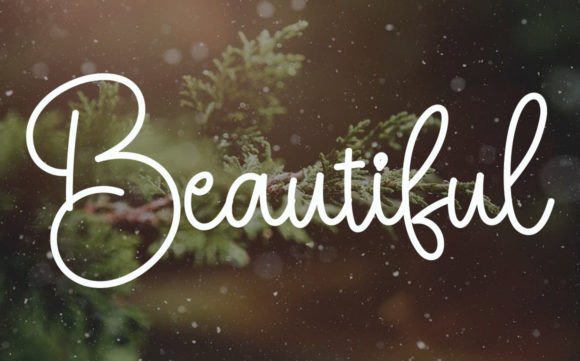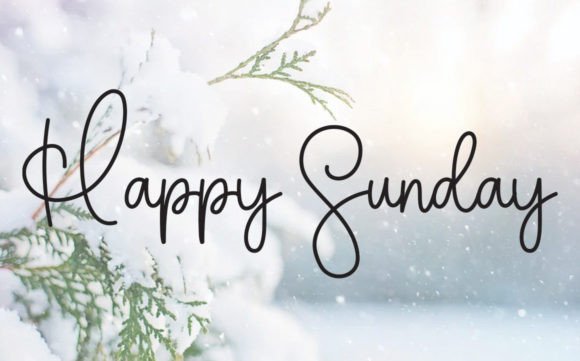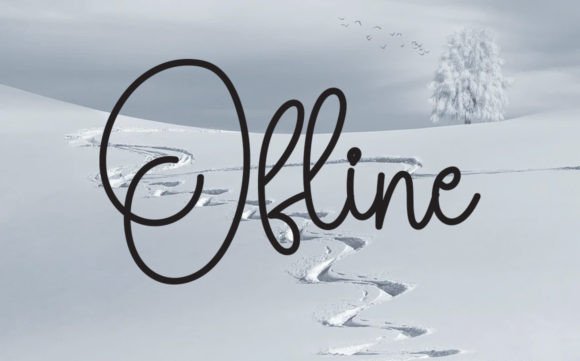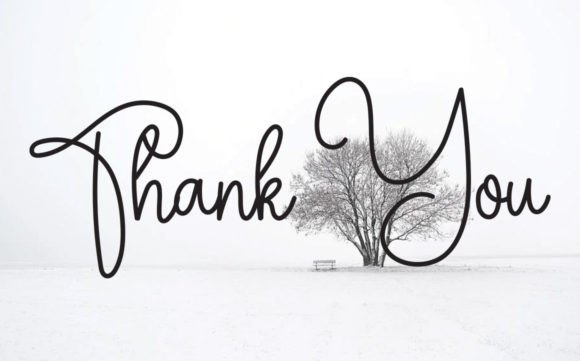
Cinderella Font: Add a Touch of Magic to Your Designs
Cinderella is an enchanting handwritten font that has captured the hearts of designers and crafters alike. This versatile font has a wide spectrum of applications, ranging from greeting cards to headlines, and is guaranteed to add a romantic feel to your next project. In this article, we’ll dive into the world of Cinderella Font, exploring its features, uses, and benefits, as well as provide tips on how to make the most of this beautiful font.
The Charm of Cinderella Font
Cinderella Font is a beautiful, handwritten font that exudes elegance and sophistication. Its delicate strokes and whimsical flair make it perfect for designs that require a touch of romance and whimsy. Whether you’re creating a wedding invitation, a greeting card, or a blog post, Cinderella Font is sure to add a dash of magic to your project.
Features of Cinderella Font
- Handwritten style: Cinderella Font boasts a beautiful, handwritten style that gives it a personal and intimate feel.
- Versatile: This font is suitable for a wide range of applications, from formal to informal designs.
- Romantic feel: Cinderella Font is guaranteed to add a romantic touch to your designs, making it perfect for wedding-related projects, Valentine’s Day cards, and more.
- Elegant strokes: The font’s delicate strokes and curves make it a joy to use for both headings and body text.
Uses of Cinderella Font
Cinderella Font is incredibly versatile, and its uses are endless. Here are some ideas to get you started:
- Greeting cards: Add a touch of elegance to your greeting cards, whether it’s for a birthday, wedding, or holiday.
- Wedding designs: Cinderella Font is perfect for wedding invitations, save-the-date cards, and other wedding-related designs.
- Headlines and titles: Use Cinderella Font to add a touch of whimsy to your headlines and titles, making them stand out from the crowd.
- Blog posts: Add a personal touch to your blog posts with Cinderella Font, making them more engaging and readable.
- Social media graphics: Use Cinderella Font to create eye-catching social media graphics that are sure to grab attention.
Tips for Using Cinderella Font
To make the most of Cinderella Font, here are some tips to keep in mind:
- Pair with contrasting fonts: Pair Cinderella Font with a contrasting font to create visual interest and hierarchy.
- Use for headings and titles: Cinderella Font is perfect for headings and titles, making them stand out from the rest of the text.
- Experiment with colors: Try out different colors to see which one works best with Cinderella Font, from soft pastels to rich jewel tones.
- Don’t overuse: Use Cinderella Font sparingly to avoid overwhelming your design, and make sure it doesn’t compete with other design elements.
Cinderella Font is a beautiful, enchanting font that is sure to add a touch of magic to your designs. Its versatility, elegance, and romantic feel make it perfect for a wide range of applications, from greeting cards to headlines. By following the tips outlined in this article, you’ll be able to make the most of Cinderella Font and create designs that are truly fit for a princess.